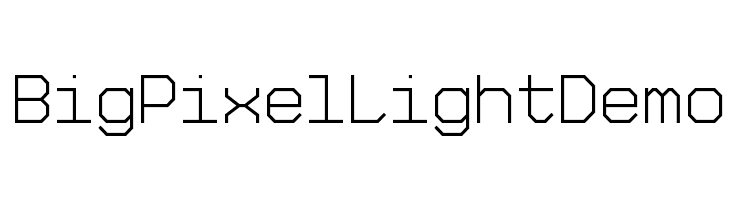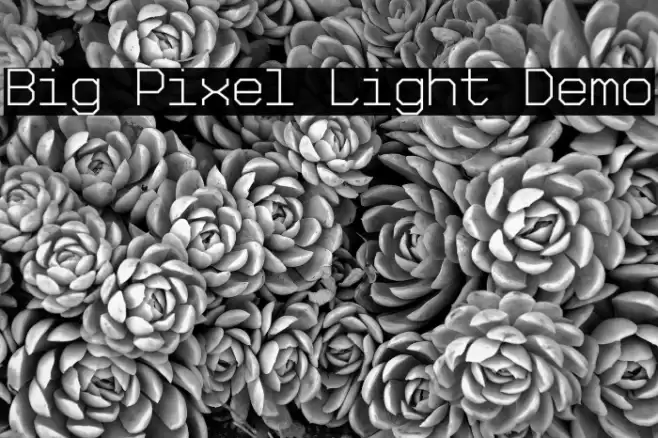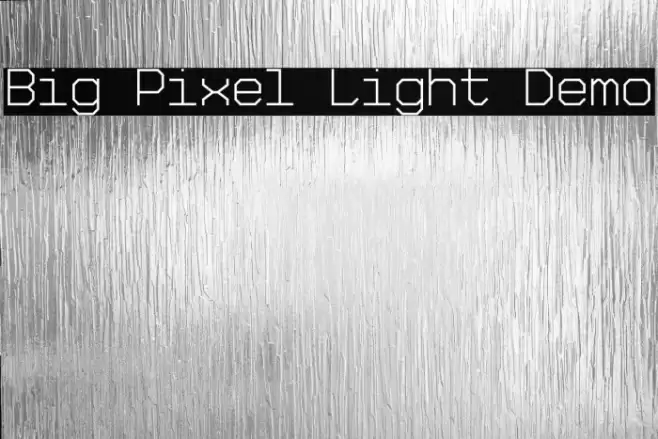
Big Pixel Light Demo Font
Big Pixel Light Demo Description
This font features a geometric, pixelated design that evokes a digital or retro aesthetic. The characters are constructed with straight lines and sharp angles, giving them a blocky, grid-like appearance. The uppercase and lowercase letters maintain a consistent height, contributing to a uniform look. The numerals and special characters follow the same design principles, ensuring cohesion across all glyphs. This font's unique style is reminiscent of early computer graphics, making it ideal for projects that aim to capture a nostalgic or tech-inspired feel.
A geometric, pixelated font with a retro digital aesthetic from Basic fonts.
- Proposed Projects: Ideal for video game graphics, tech-themed posters, digital art, and retro-inspired designs.
- Weight: Light
- Overall Style: Retro, Digital